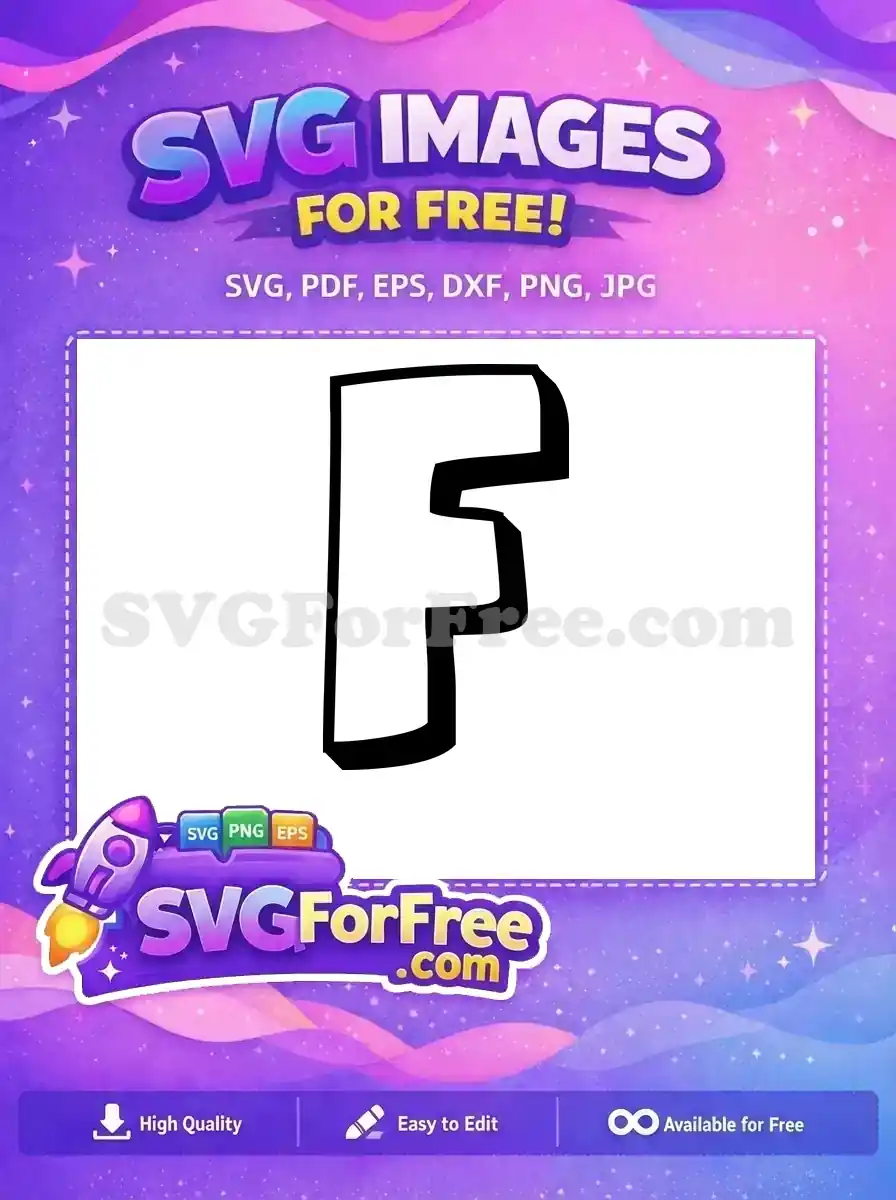
Free Black Outline Font Free Letter F Initial Free SVG – Instant Download
Cartoonish letter F with thick outlines, free vector art.
Free Black Outline Font Free Letter F Initial Free SVG